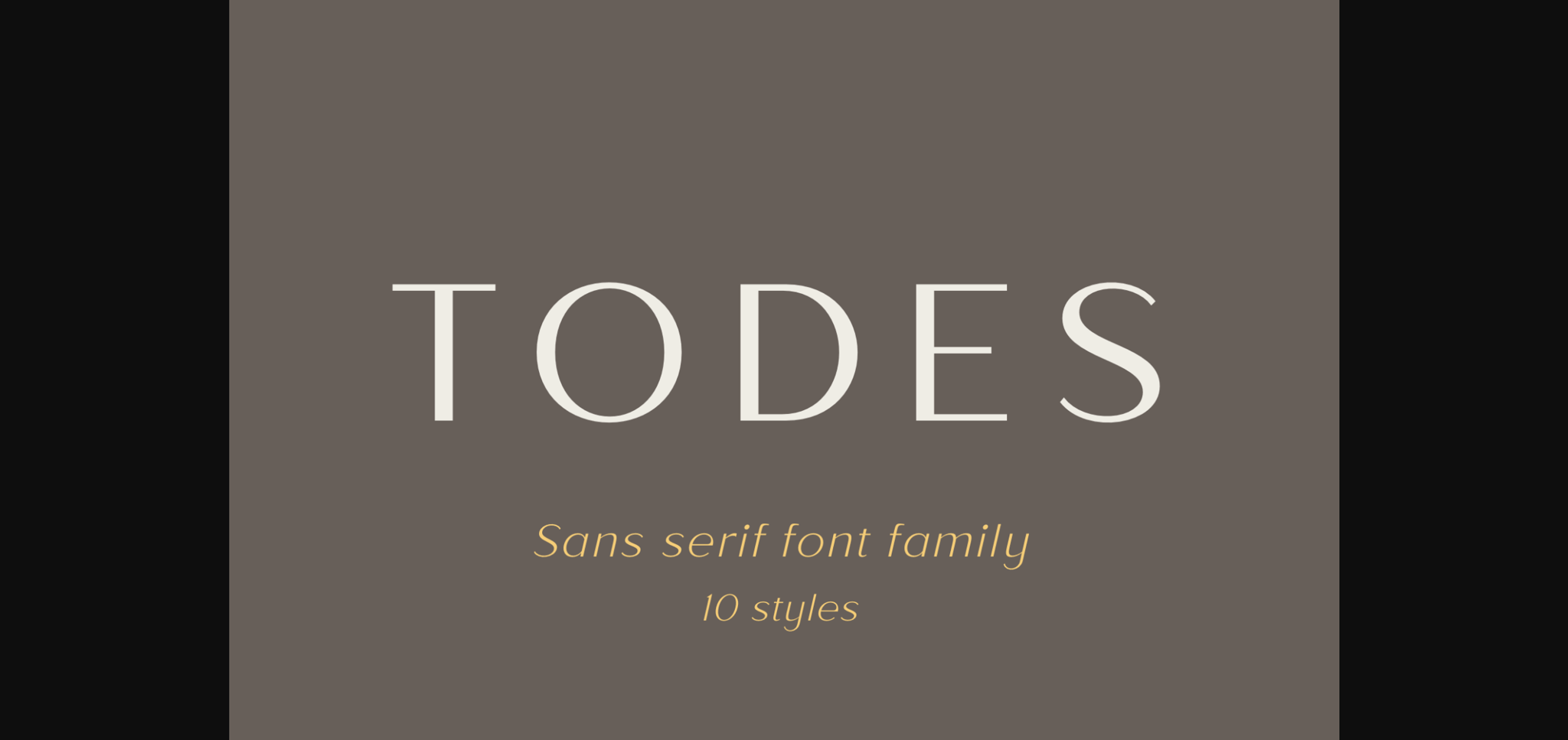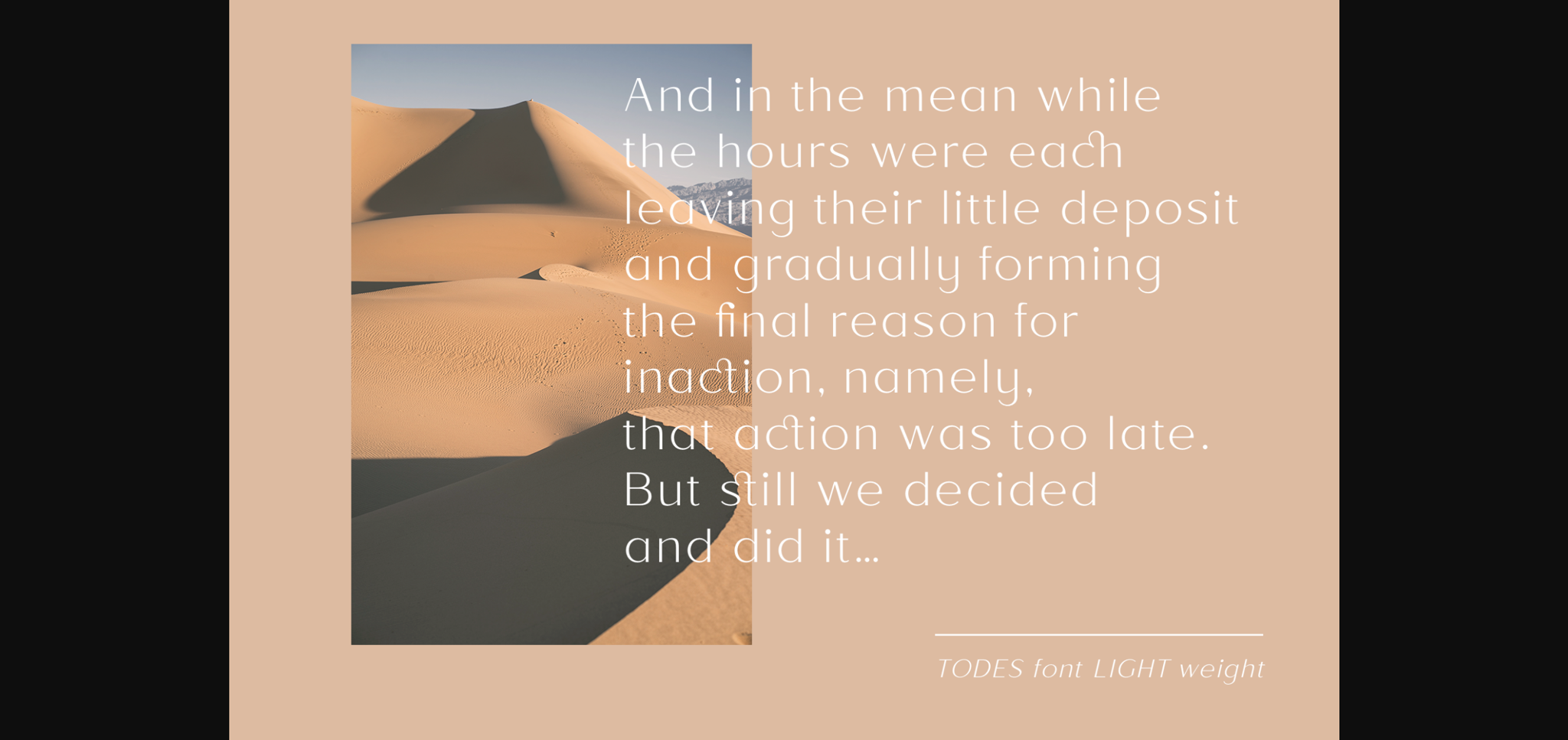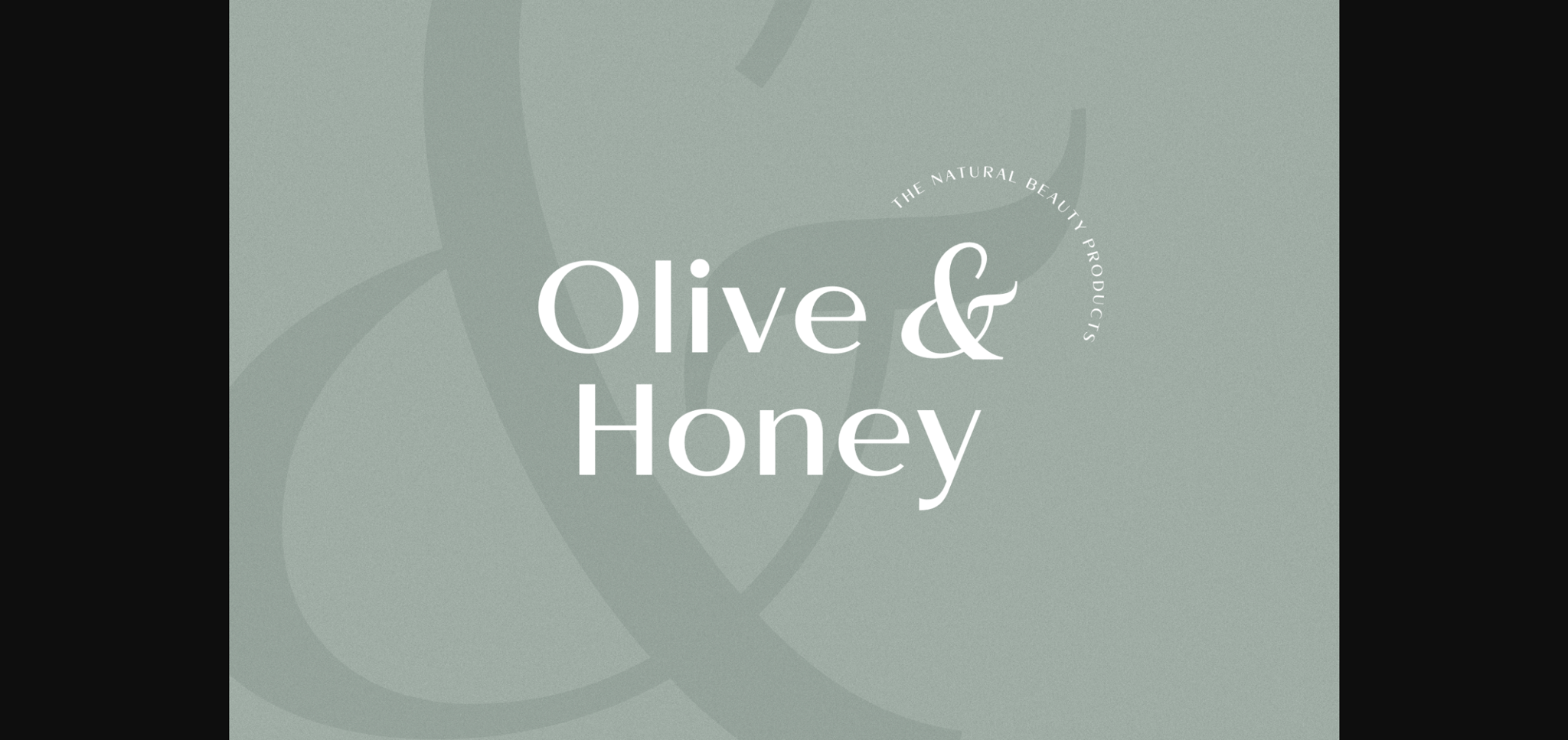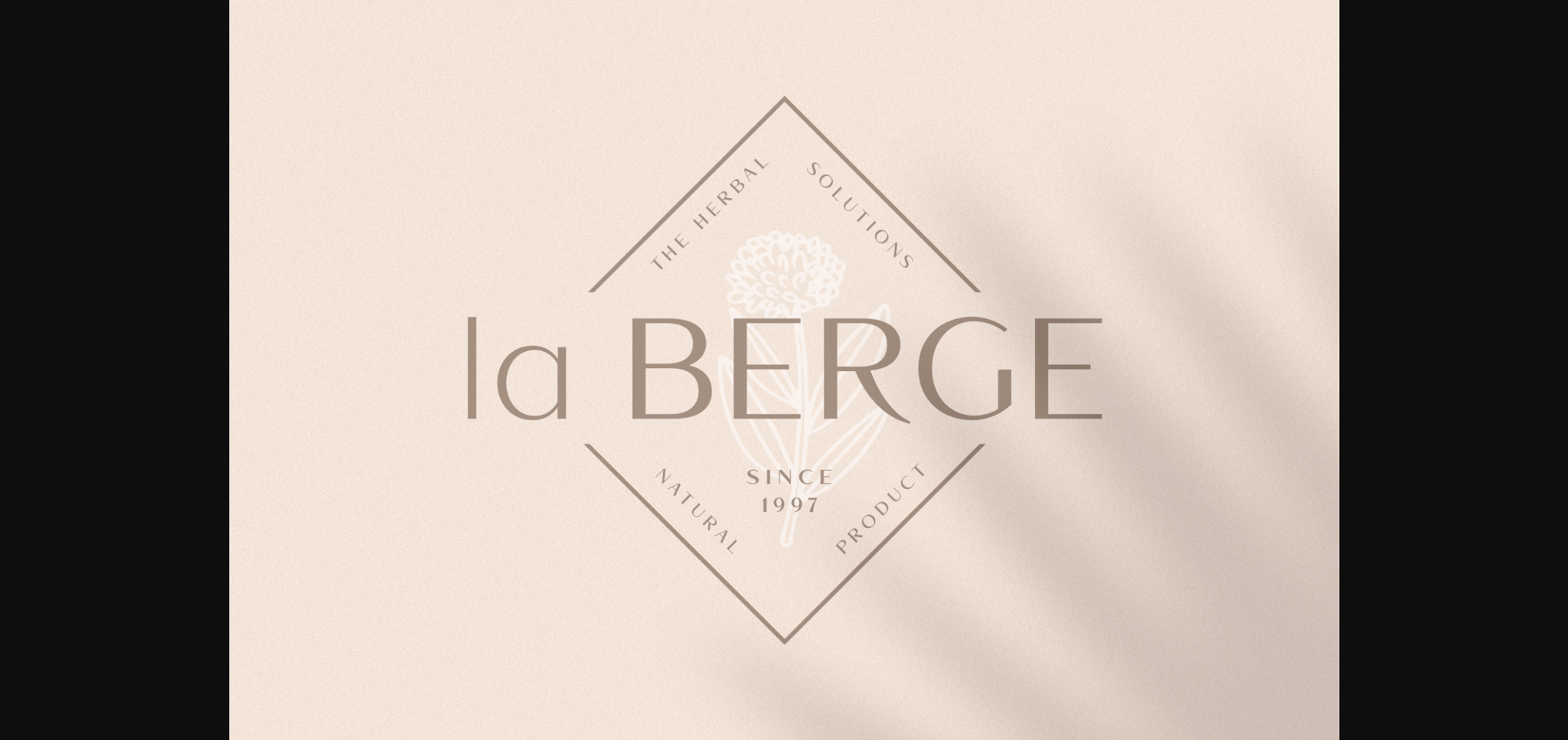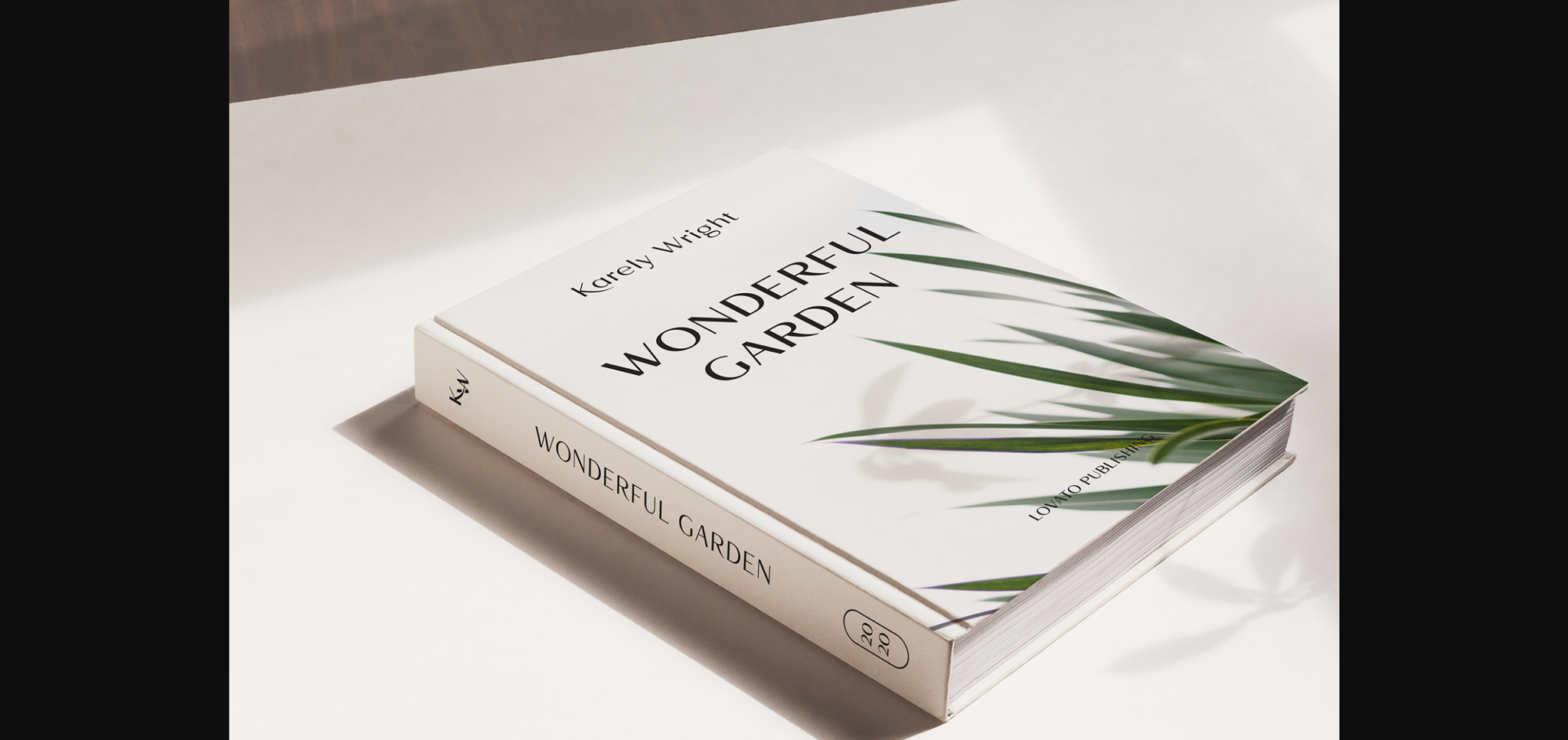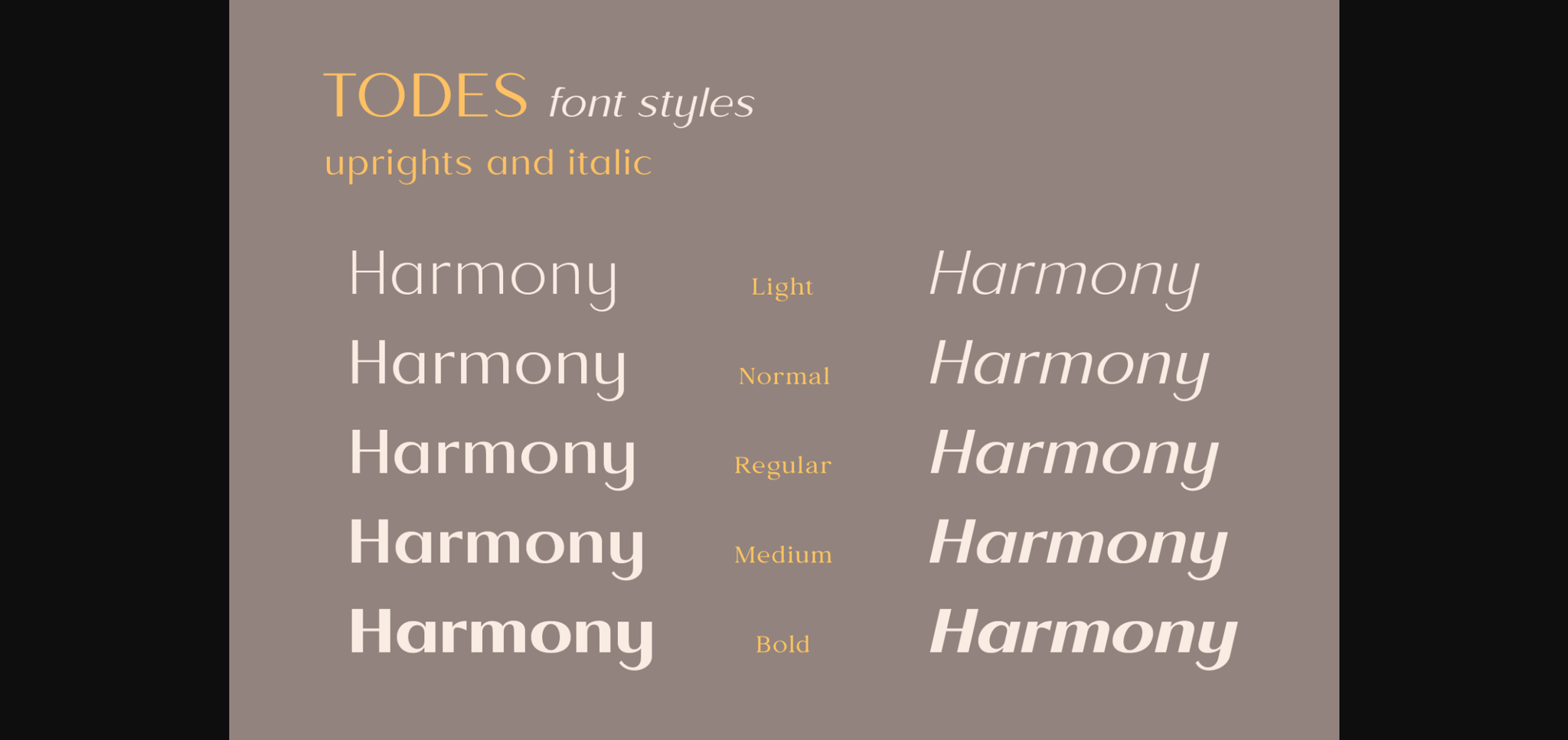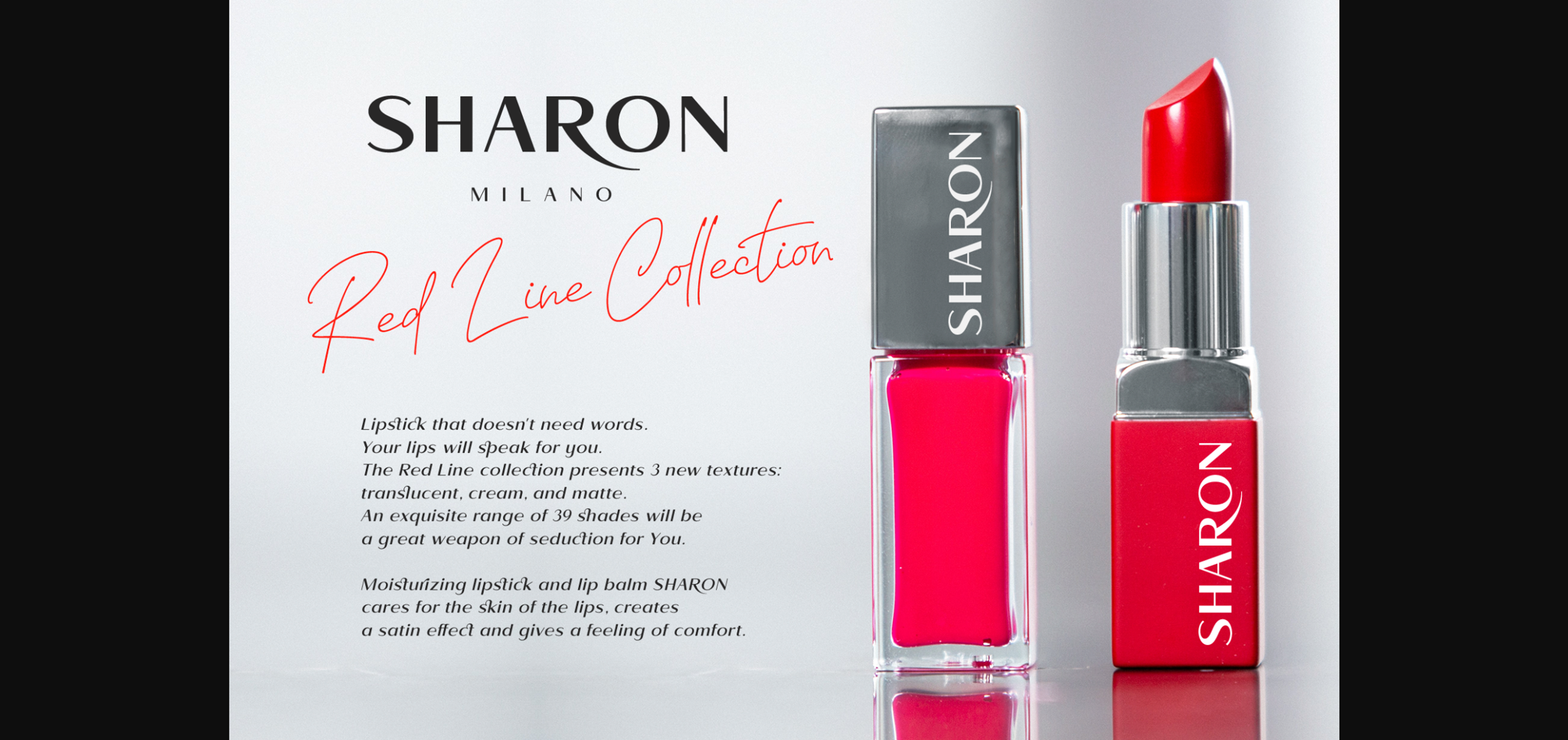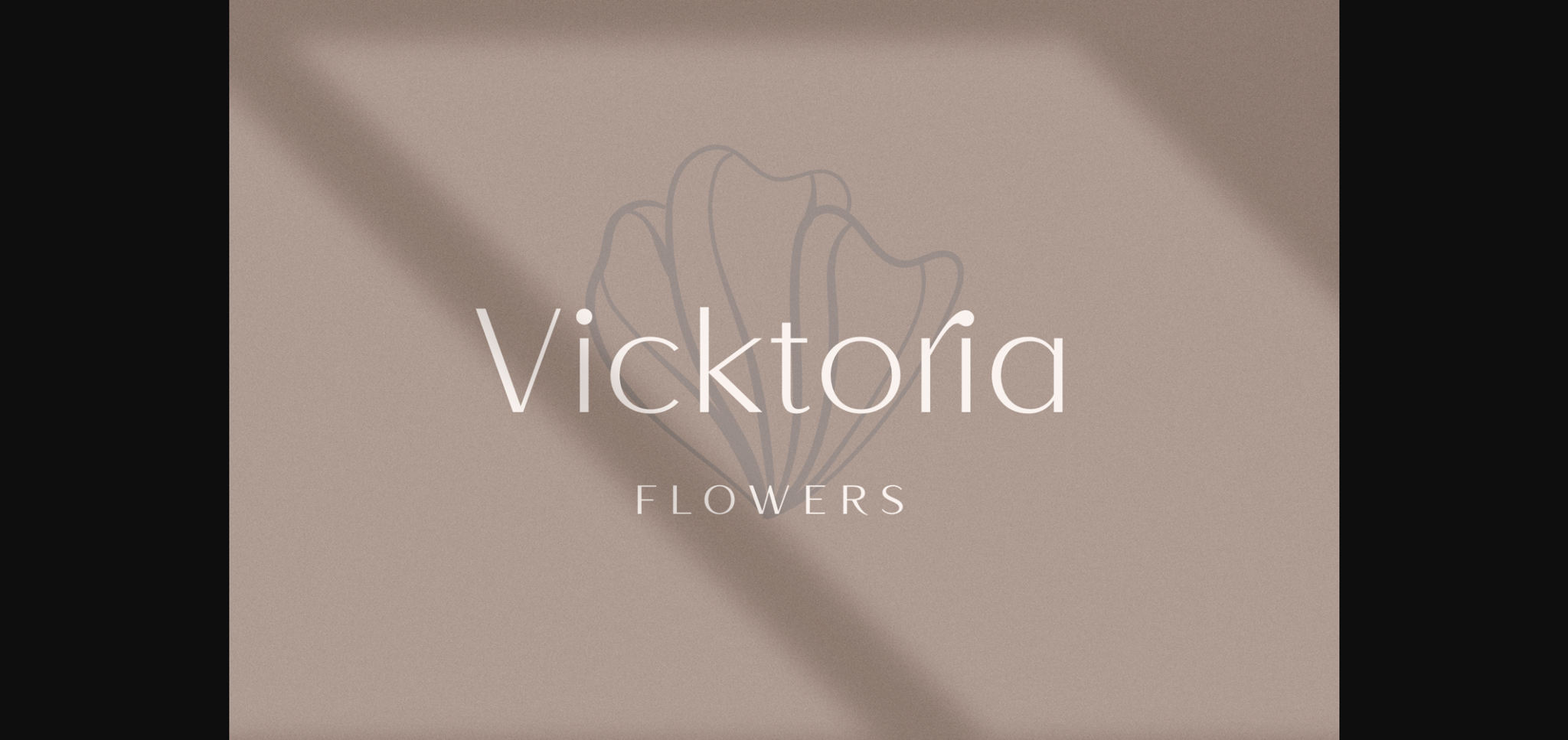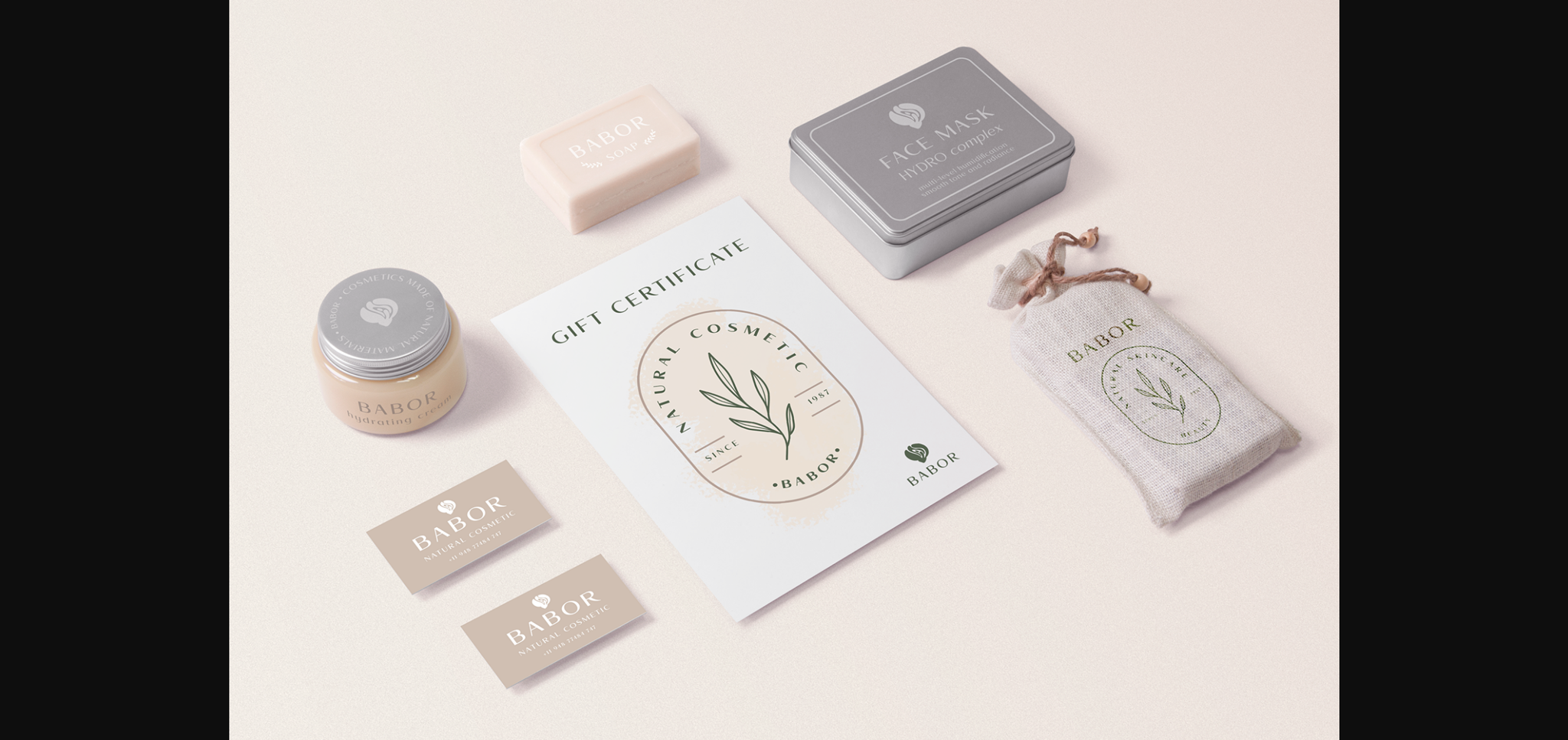
HomeSans Serif FontsTodes Font Sans Serif Fonts Todes Font FacebookXPinterestWhatsApp 1 of 11 ... Todes Font Poster 2... Todes Font Poster 3... Todes Font Poster 4... Todes Font Poster 5... Todes Font Poster 6... Todes Font Poster 7... Todes Font Poster 8... Todes Font Poster 9... Todes Font Poster 10... Todes Font Poster 11... About Todes Font Todes is an elegant and modern font. It will look particularly adept when used in logos, branding, packaging design, and much more. This masterfully designed sans serif font is a true must-have. DOWNLOAD NOW People also explored Wavaca Font Chubby Cheeks Font Christmas Day Font Love Valentine Font Sallirra Font Christmas Holiday Font Masticated Font Beach Sunday Bearetta Font 545 0 TagsTodesTodes Font Previous articleDelvon Light FontNext articleStewano Font LEAVE A REPLY Cancel reply Comment: Please enter your comment! Name:* Please enter your name here Email:* You have entered an incorrect email address! Please enter your email address here Website: Save my name, email, and website in this browser for the next time I comment. Personal Use Free Beattingvile Personal Use Free Read more about this font Boronic Personal Use Free Read more about this font Green Farmhouse Personal Use Free Read more about this font Ryujin Attack Personal Use Free Read more about this font BLOG 5 Fonts That Will Dominate Design Trends in 2026 5 Fonts for 2026 That Will Dominate Design Trends Typography plays a critical role in visual communication, and as we look ahead to 2026, it’s... Best Fonts for YouTube Videos: Make Your Thumbnails Stand Out Modern Sans-Serif Fonts That Brands Love in 2025 Top 7 Google Fonts Alternatives for Faster and Privacy-Friendly Web Design (2025)